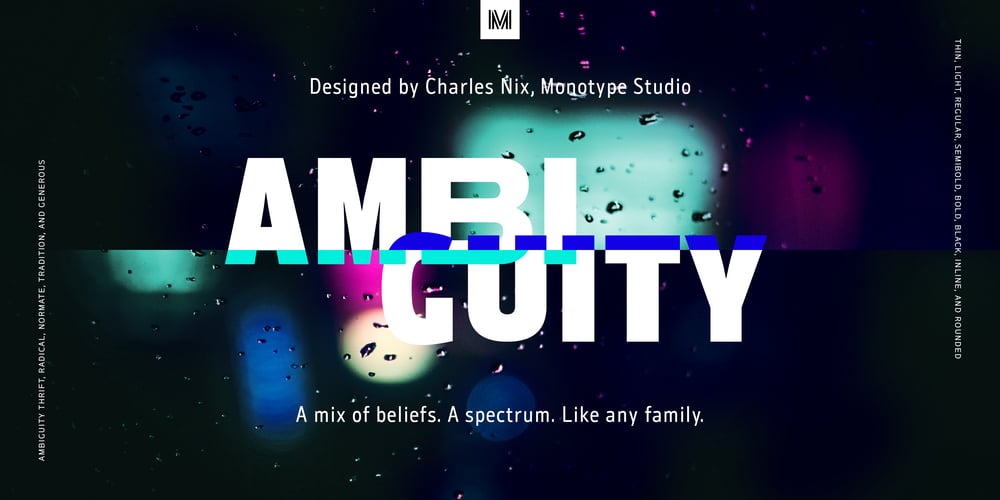
Ambiguity Font Family was designed by Charles Nix and published by Monotype. Ambiguity contains 70 styles and family package options. Ambiguity is a type family with five distinct personalities or ‘states’, created as a tool for coaxing designers and brands out of their comfort zone. It embraces both tradition and radicality, as well as generosity and thrift, encouraging us to question our beliefs about the intersection of style and meaning. The family is designed by Charles Nix, who describes Ambiguity as “as much thought experiment as typeface.” Its five states—Tradition, Radical, Thrift, Generous and Normate—each express or subvert different aspects of typographic tradition. Tradition is conservative, relying on historical letter shapes. Radical rejects inherited ideas of proportion, making typically slender letterforms wide, and wide letterforms slender. “It’s contrarian,” says Nix. Thrift cherry picks the condensed shapes from Tradition and Radical, while Generous does the same for wide forms. Normate sits at the center, a synthetic blend of all of the others. “Tradition is very comforting,” says Nix. “It’s the mask of conservatism. It’s calming because it delivers the proportions we expect. With Thrift more fits into a smaller space, so it’s great where words want to get large, like gigantic headlines, or text needs to cram in, like small screen type. You get a sense of carefree and luxury from the Generous cut. One would expect the Radical to be used in a sort of Dadaist way, but in a classic context it provides an enjoyable jolt.” Ambiguity is a litmus test. Designers could spend hours trying on typefaces that offer just one of these voices. Ambiguity provides five different personalities—ideas—beliefs—each of which also work seamlessly together. “It’s a palettea, like idea cards,” he says. “It’s a way of making yourself see differently. My hope is that traditionalists will try on radical clothes and vice versa. It’s a way of exploring outside your comfort zone, breaking out of the doldrums, by stepping through a variety of voices.”